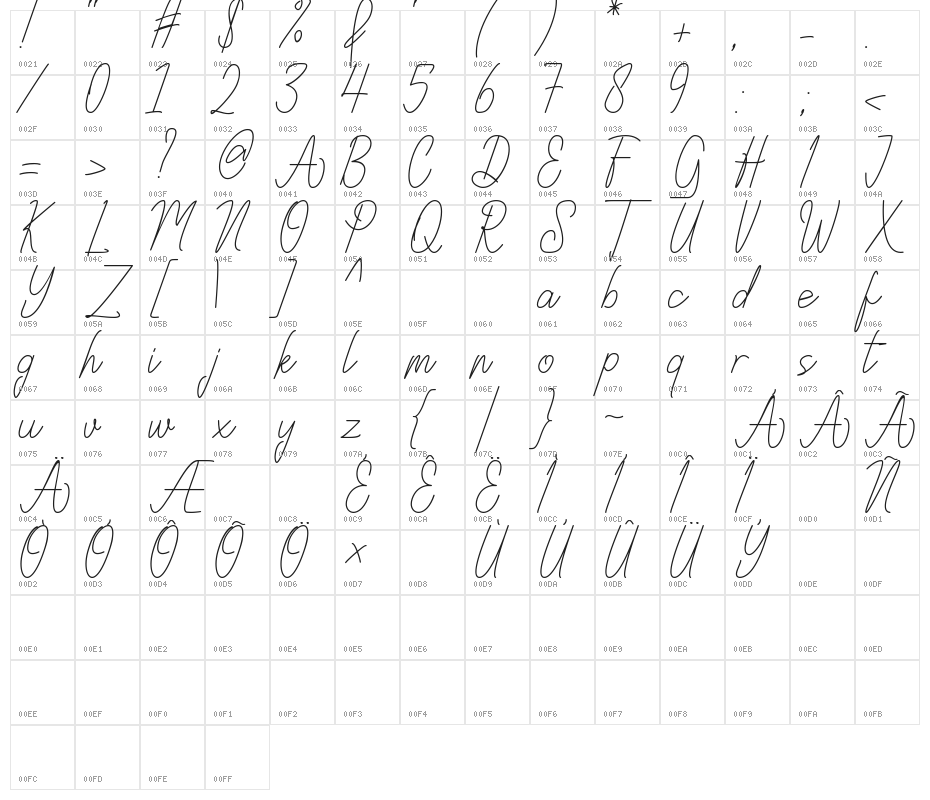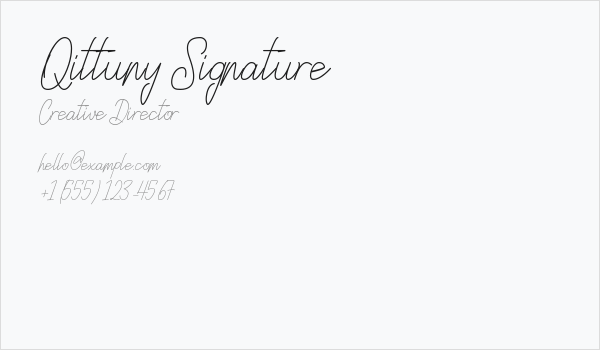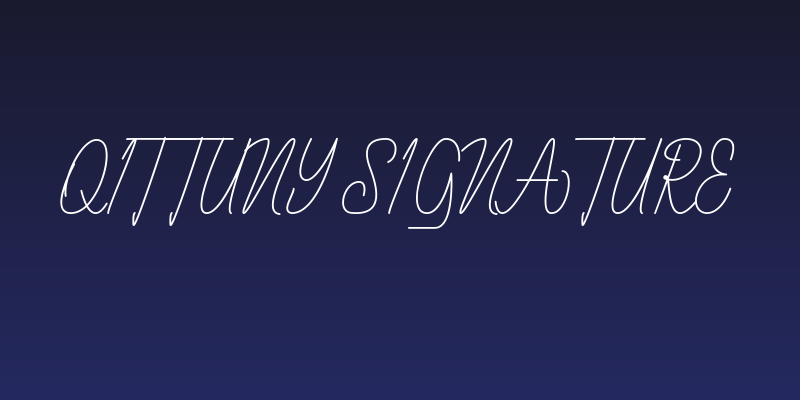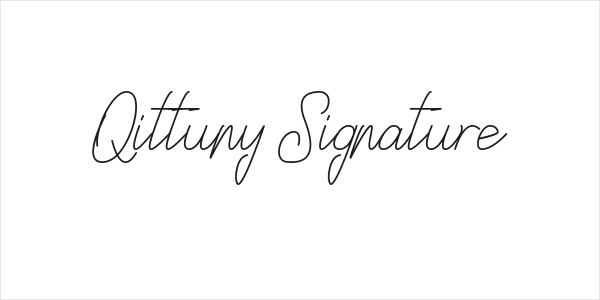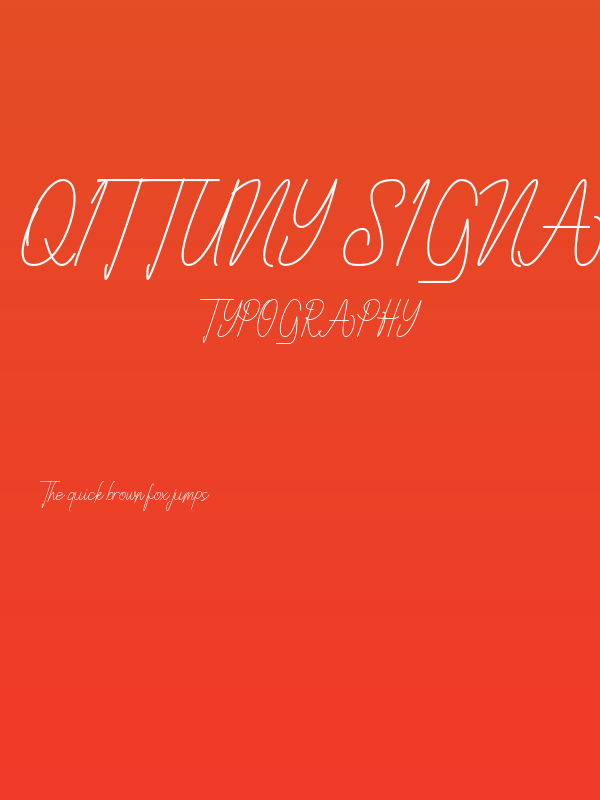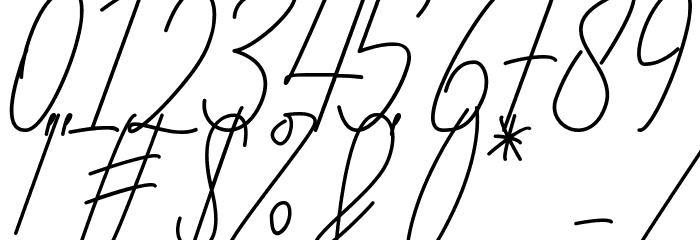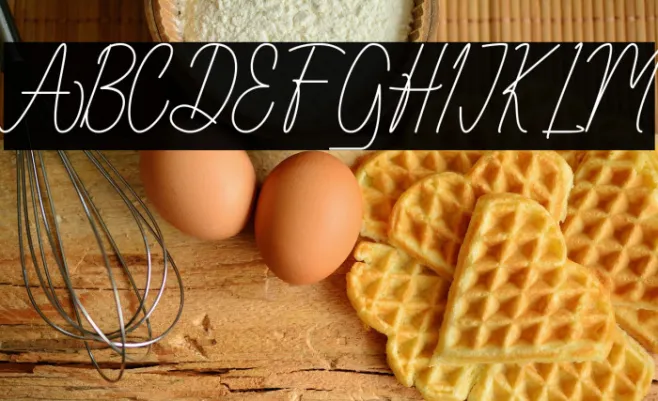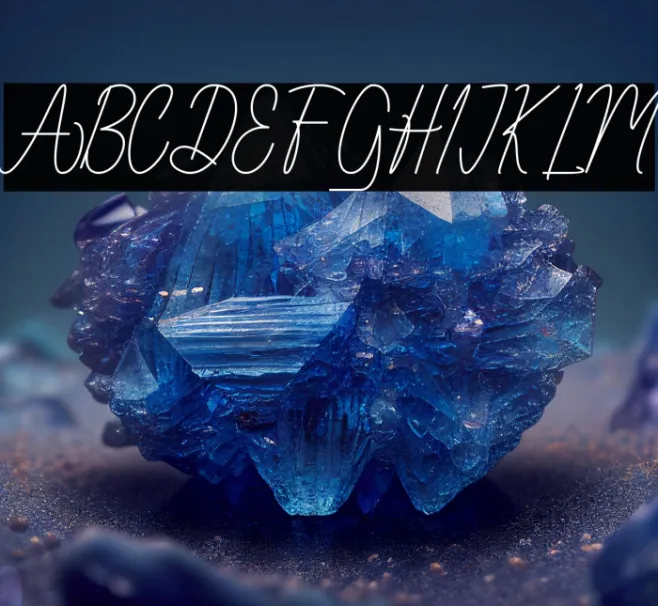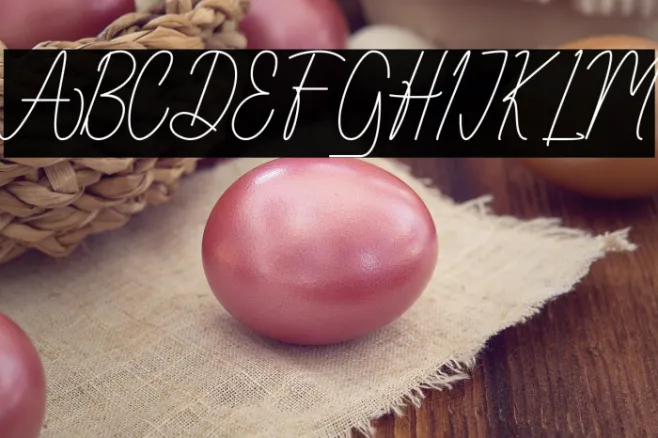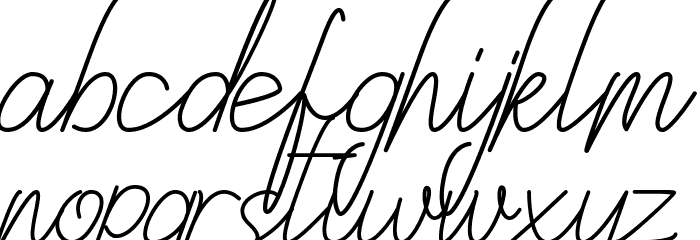
Qittuny Signature Font
Qittuny Signature Description
This elegant script font features a fluid, cursive style with a modern touch. The characters are connected, creating a seamless flow that mimics natural handwriting. The uppercase letters are tall and slender, while the lowercase letters maintain a consistent baseline, adding to the font's graceful appearance. The numerals and special characters are designed to complement the letters, maintaining the same flowing style. This font is perfect for projects that require a personal, handwritten feel, such as invitations, greeting cards, or branding materials.
| Proposed Projects | Ideal for wedding invitations, personal branding, greeting cards, and elegant stationery. |